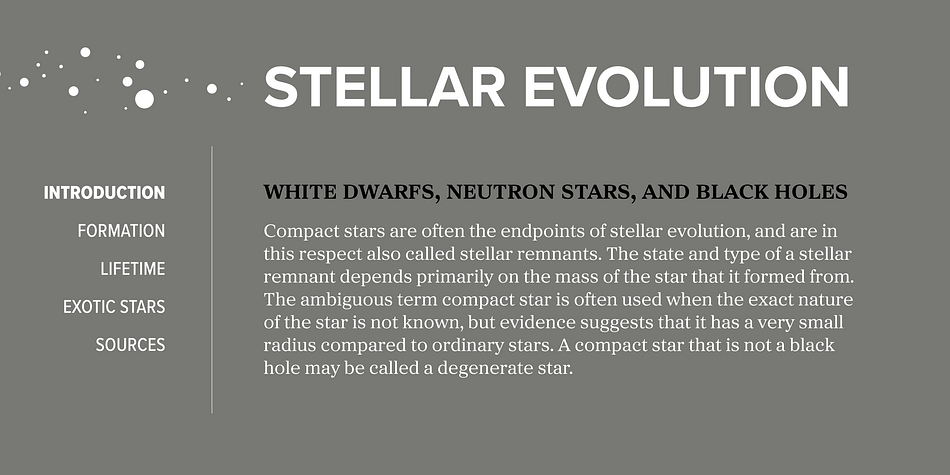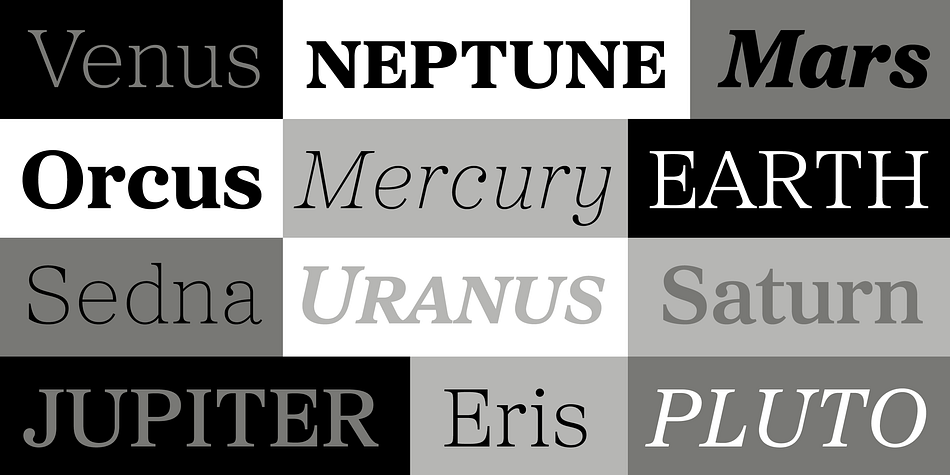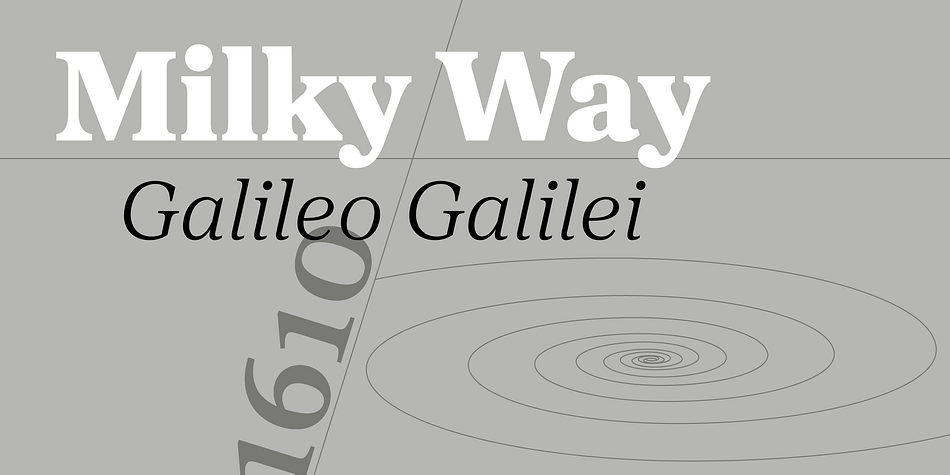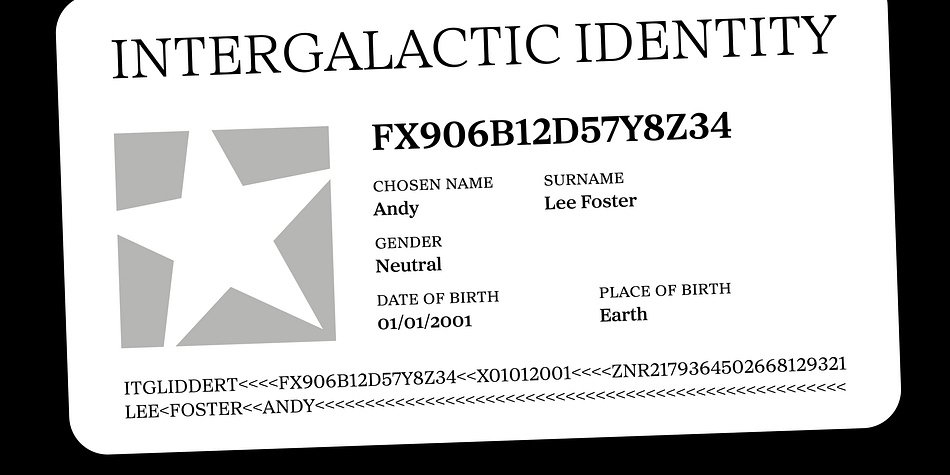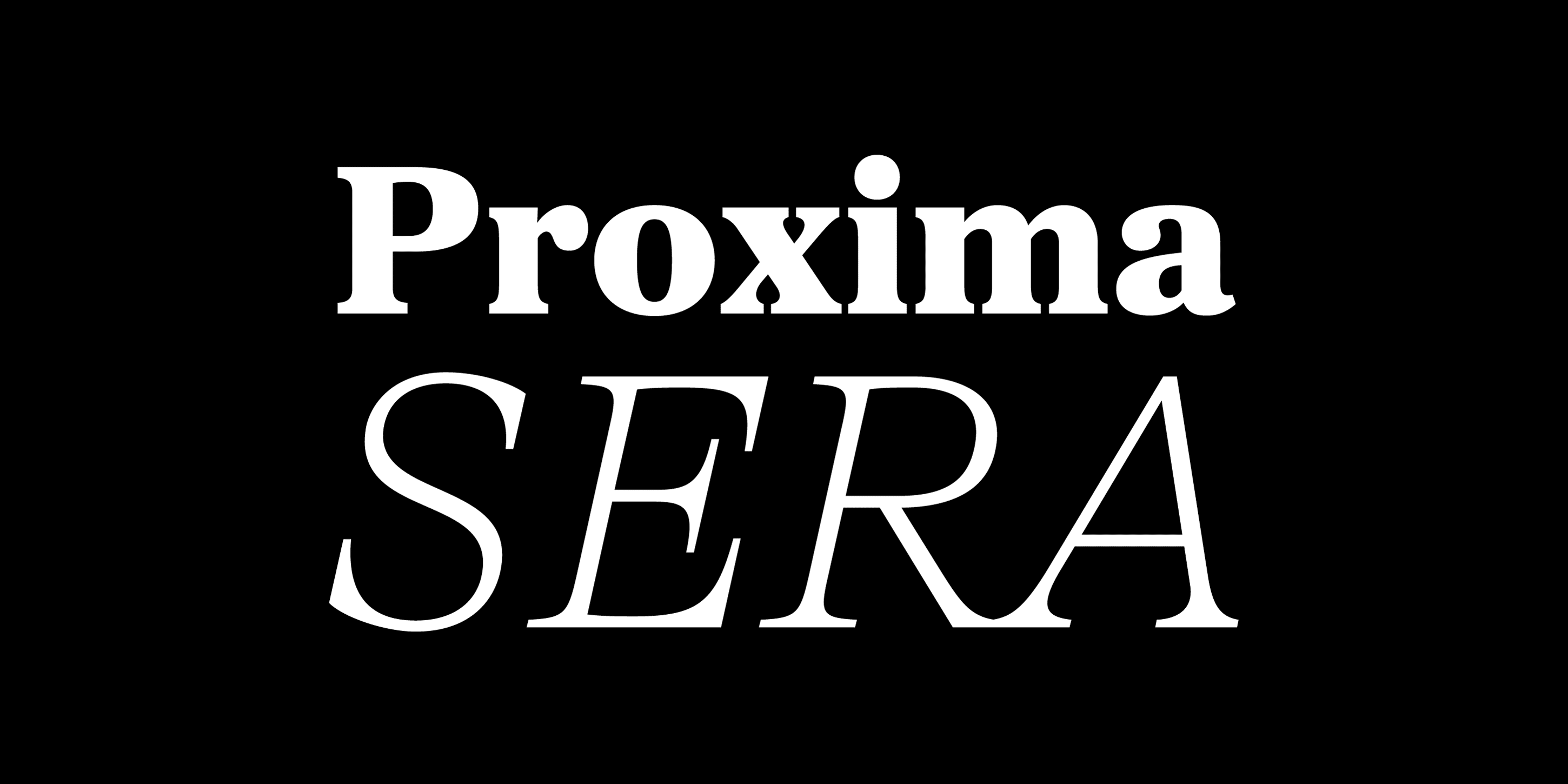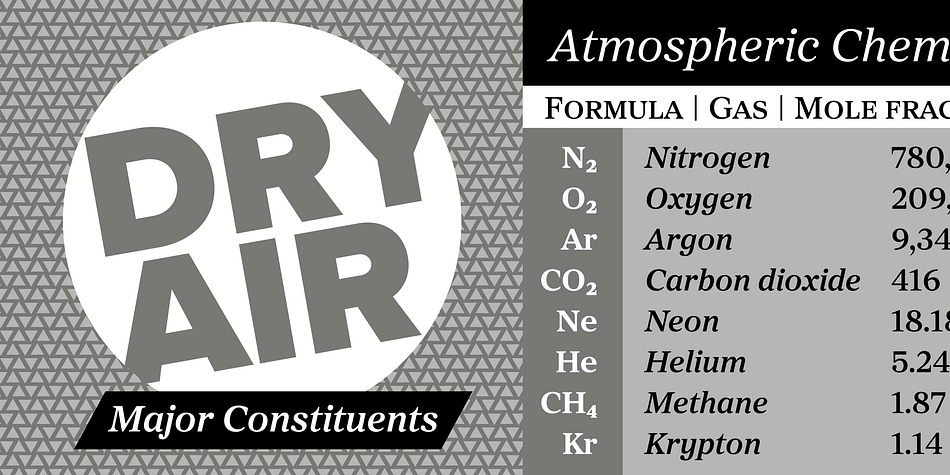
Designed by Mark Simonson, Proxima Sera is a display serif and serif font family. This typeface has eighteen styles and was published by Mark Simonson Studio.
Mark Simonson’s Proxima Sera answers the question that designers and typographers have asked for more than fifteen years—what serif typeface should I pair with Proxima Nova? Proxima Sera is a hybrid design, combining characteristics of old style and modern serif typefaces into something new that is clean and highly readable. While its proportions and range of weights are designed to harmonize with Proxima Nova, it stands alone just as well. Its even color and large x-height make it a logical choice for text settings, but Proxima Sera still has enough warmth for display use—especially Thin and Black. Try those in headlines, posters, or anywhere else you need to bring some fresh personality.